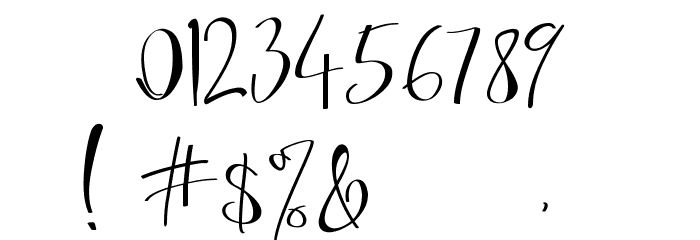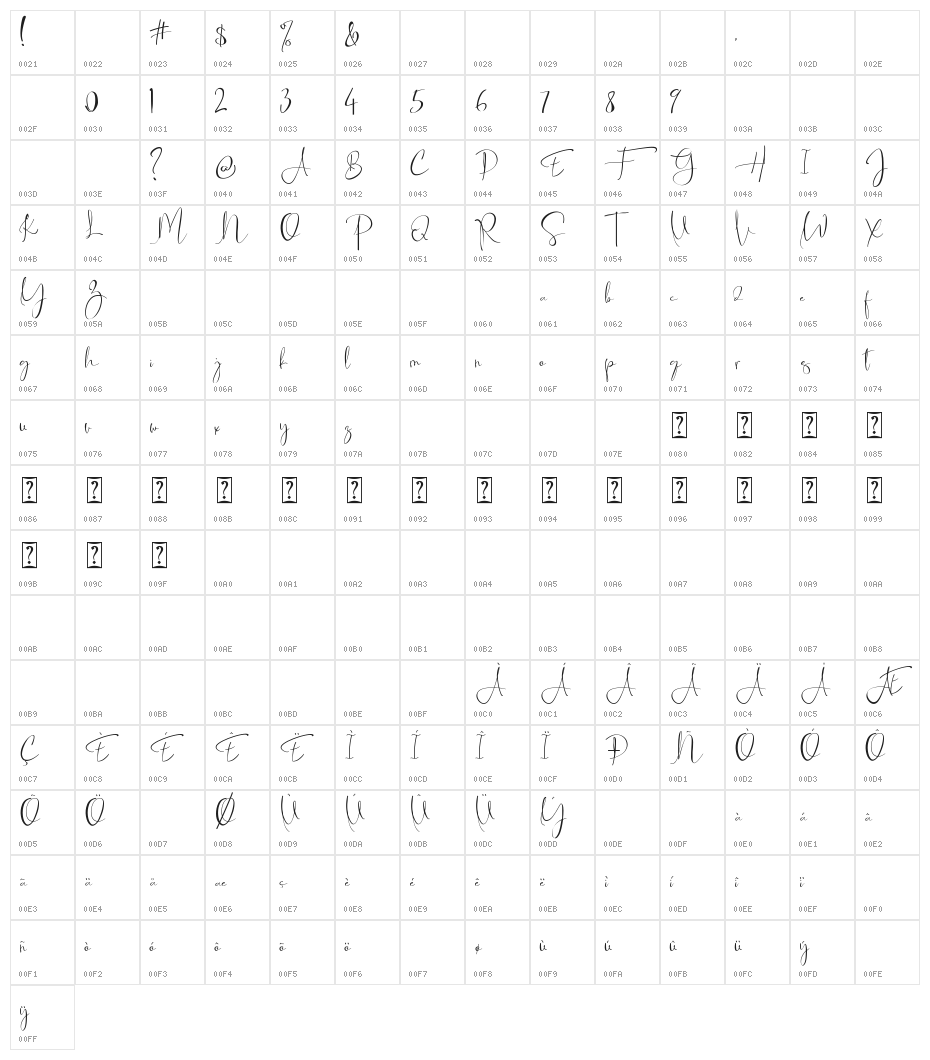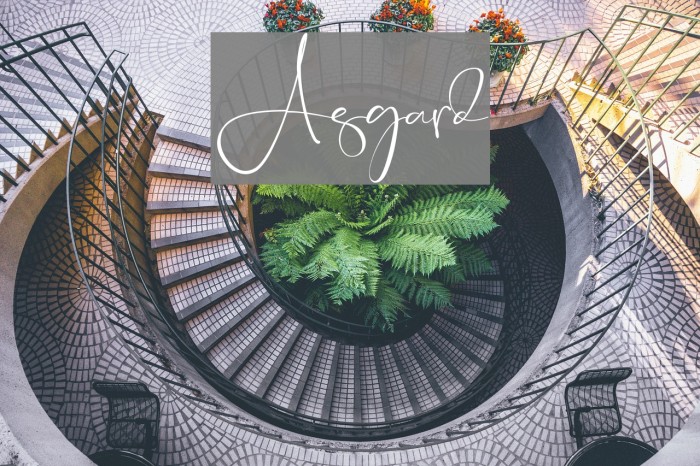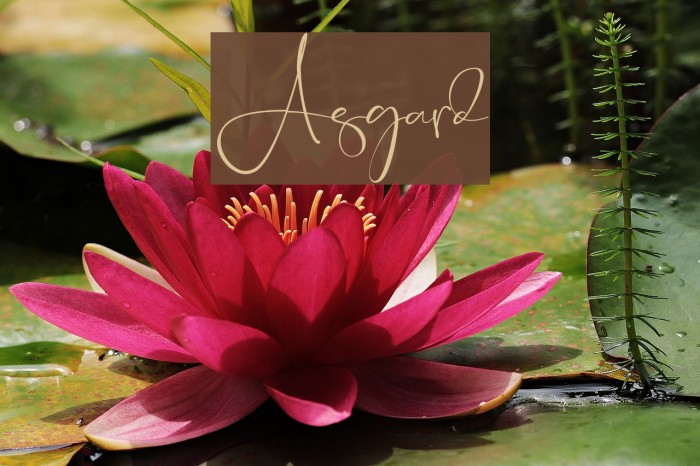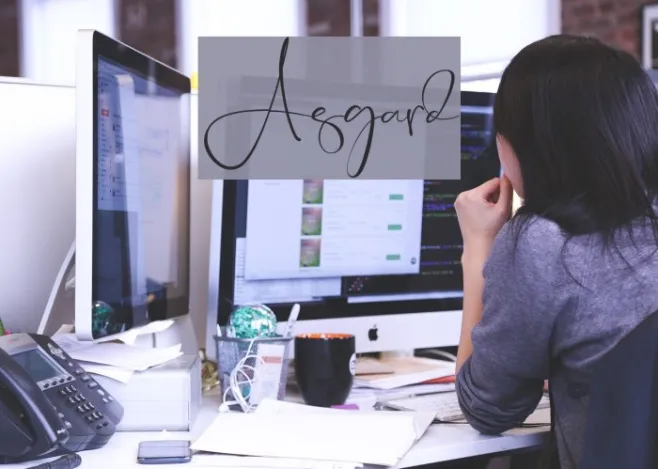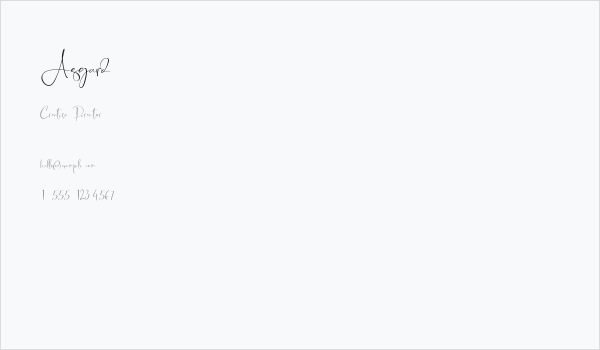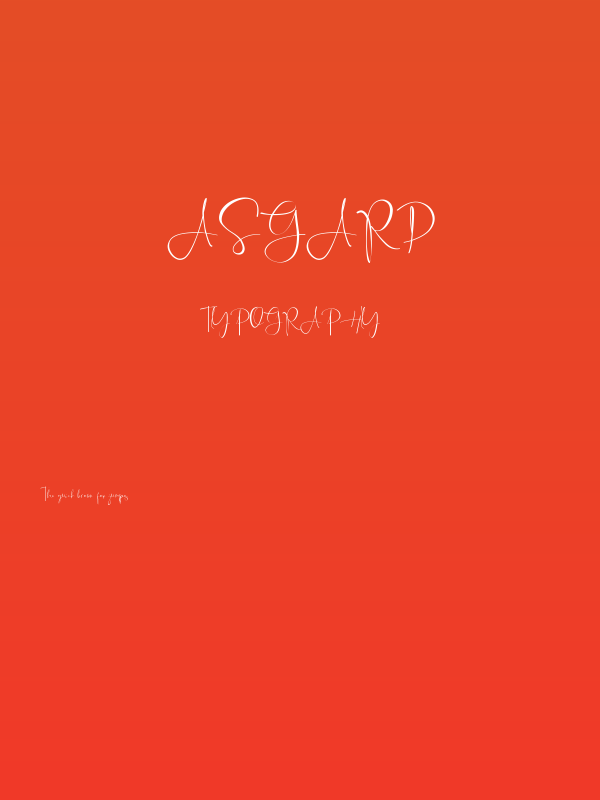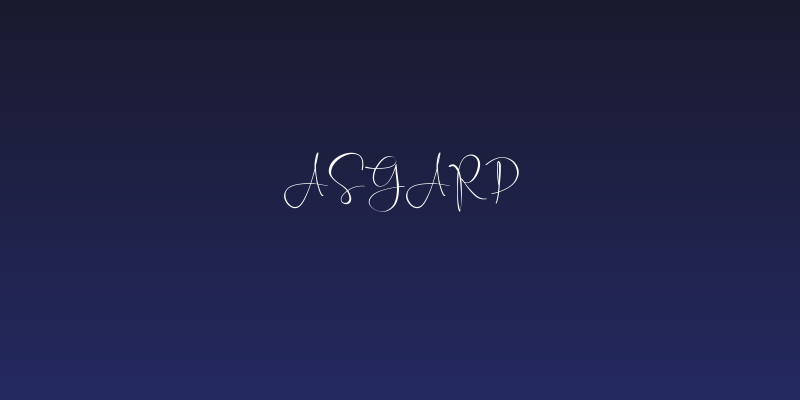
Asgard Font
Asgard Description
This font features an elegant and flowing script style, characterized by its graceful curves and fluid strokes. The uppercase letters exhibit a sense of grandeur with their tall and slender forms, while the lowercase letters maintain a consistent, cursive flow that enhances readability. The numerals are distinct and maintain the same fluidity, making them easily distinguishable. Special characters are crafted with the same attention to detail, ensuring a cohesive look across all glyphs. This font exudes a sense of sophistication and is perfect for projects that require a touch of elegance and style.
| Proposed Projects | Ideal for wedding invitations, elegant branding, personal stationery, and high-end product packaging. |